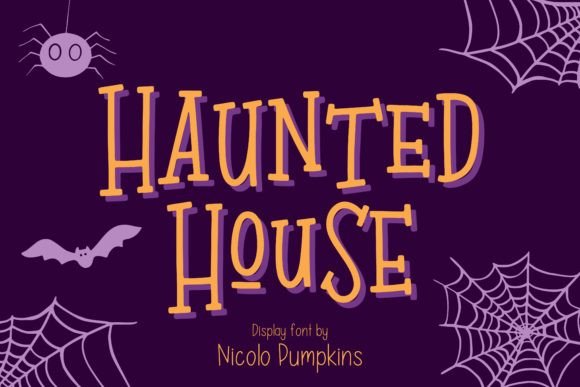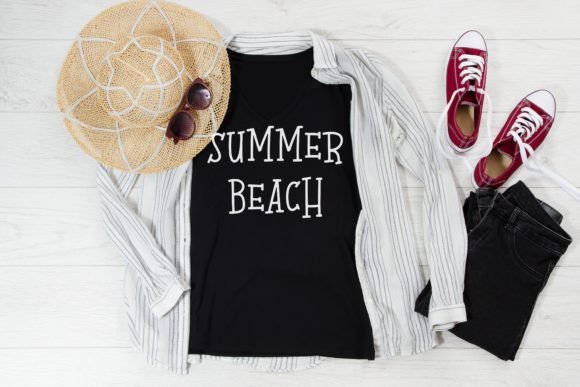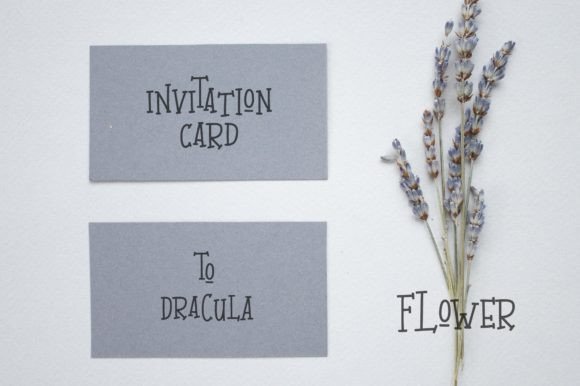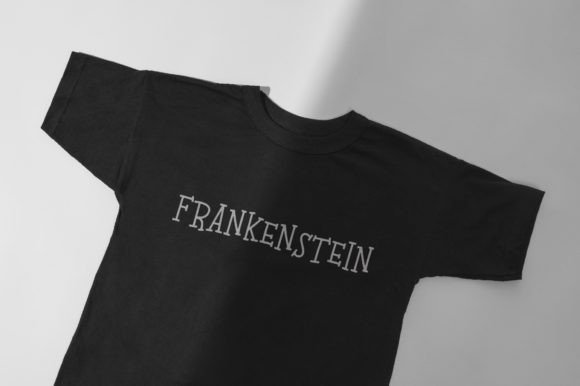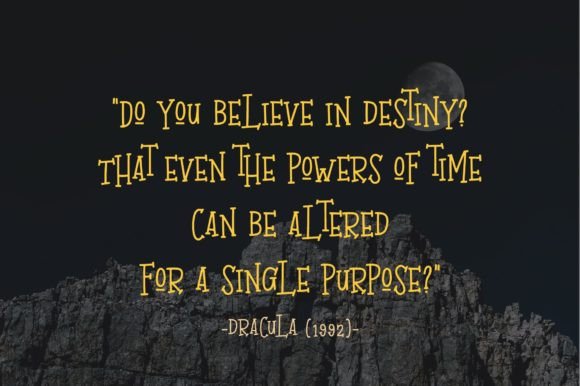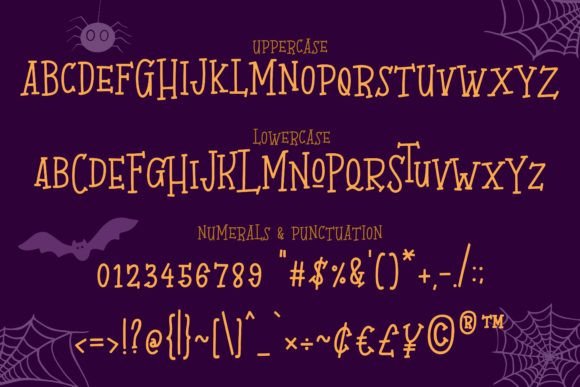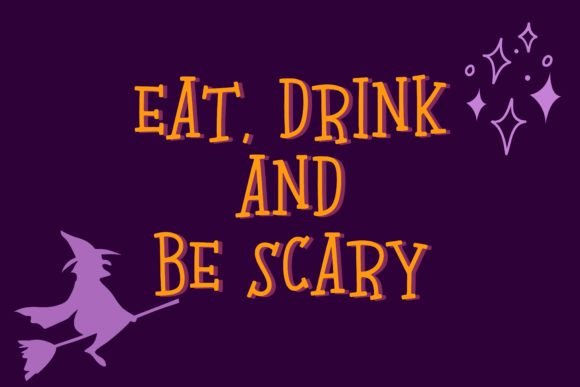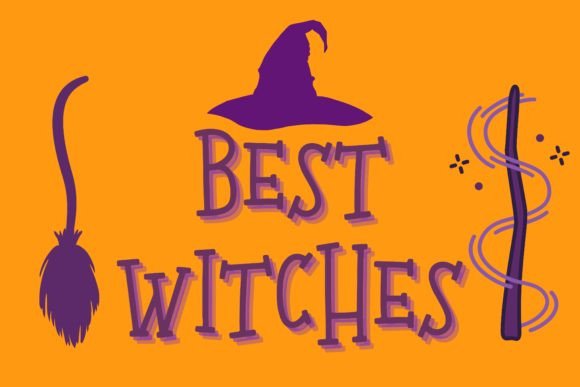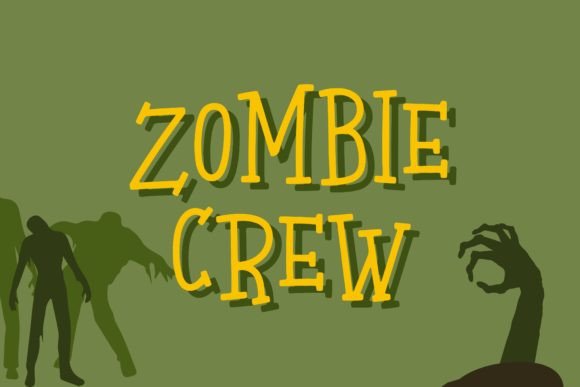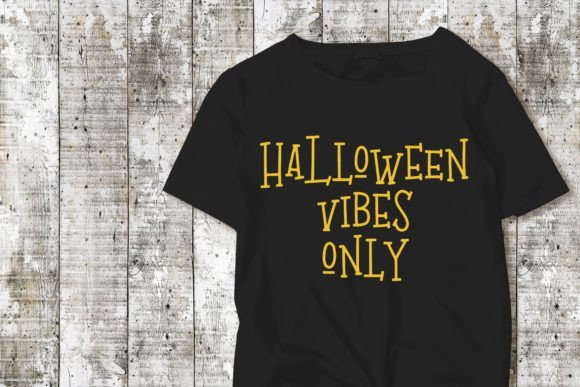
Haunted House Font
Haunted House, a cute and spooky Halloween handwritten font, offers a playful and atmospheric option for your Halloween-themed creative projects. Whether you’re working on quotes, logos, or any lettering product with a spooky vibe, Haunted House brings a charmingly eerie touch to your designs.
The combination of cute and spooky features in Haunted House makes it suitable for various Halloween design applications, adding a sense of playfulness and spookiness to your text. The handwritten style enhances the authenticity of your Halloween-themed projects, capturing the spirit of the season.
Haunted House’s PUA encoding feature ensures easy access to a range of glyphs and swashes, allowing for seamless customization and personalization of your designs. This feature empowers you to experiment with different elements, adding a unique and customized touch to your Halloween lettering.
Incorporate Haunted House into your Halloween-themed creative endeavors and witness how it transforms your designs into cute and spooky expressions of creativity. Whether you’re designing for print or digital media, Haunted House is a font that brings a festive and playful energy to your Halloween projects. Let Haunted House be the key element that makes your creative ideas stand out, capturing the enchantment of Halloween with its charmingly spooky style!